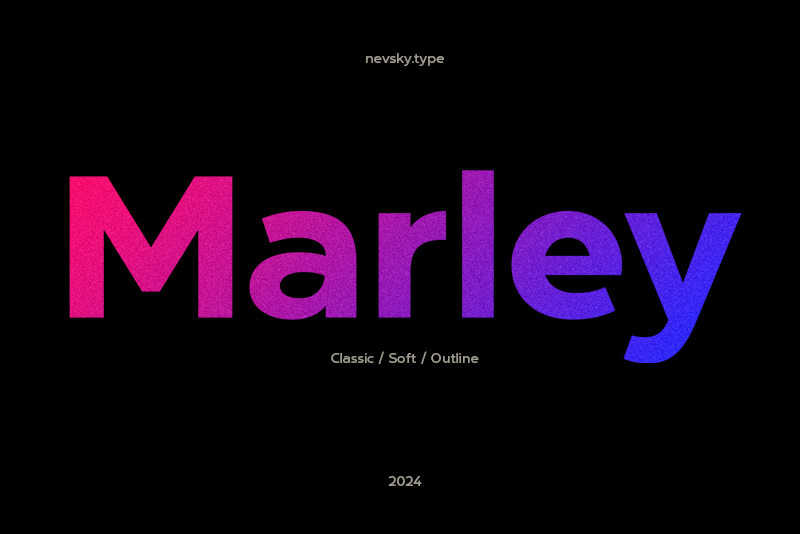
Preview and download NT Marley Font. Created by Artem Nevsky in Basic Sans serif styles with Free for personal use license.
NT Marley is a new sans serif typefamily. Supports over 200 Latin-based languages. FOR PERSONAL USE ONLY! FOR PERSONAL AND COMMERCIAL USE, please download here: https://pixelsurplus.com/products/nt-marley-sans-serif-type-family?_pos=1&_sid=db1343b97&_ss=r https://thehungryjpeg.com/product/4394539-nt-marley -------- my works: https://www.behance.net/artemnevsky email: nevsky.type@gmail.com |